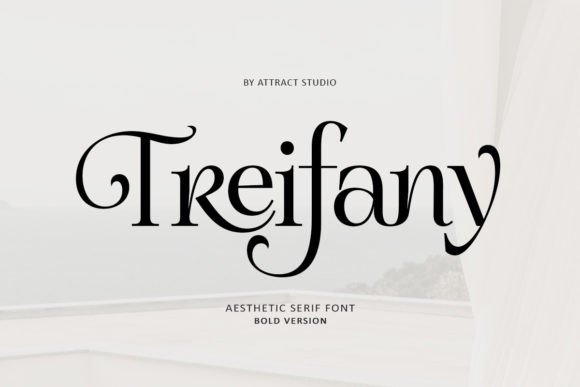
Unleash your inner designer and step into the world of elegance with Treifany Font, the ultimate display font family. Crafted by the visionary artisans at Attract Studio, Treifany is a beautiful dance of serif strokes, each letter carrying an aura of timeless grace.
With its captivating aesthetic style, Treifany effortlessly elevates your designs, leaving a trail of sophistication and charm. Its intricate ligatures and a treasure trove of alternative custom glyphs provide endless possibilities to unleash your creativity. Whether you're crafting editorial masterpieces, designing logos that leave a lasting impression, or creating product packaging that exudes luxury, Treifany is your perfect companion.
Explore the world of editorial projects, where Treifany's refined strokes bring your words to life, transforming ordinary text into captivating narratives. Its multilingual support knows no boundaries, allowing you to communicate with elegance across cultures and languages.
For the logo designers, Treifany is a gift. Its ability to create stunning logos that radiate an aura of sophistication is unparalleled. Each letter in Treifany is a work of art, coming together to form a visual symphony that demands attention and leaves an unforgettable impression.
Treifany's versatility extends to product packaging, where it transforms ordinary boxes into works of art. Its presence adds a touch of sophistication that speaks to the discerning consumer, making your products stand out from the crowd.
With Treifany, the possibilities are endless. It's not just a font; it's an invitation to embark on a creative journey where your imagination takes center stage. Welcome to the world of elegance, where Treifany reigns supreme.